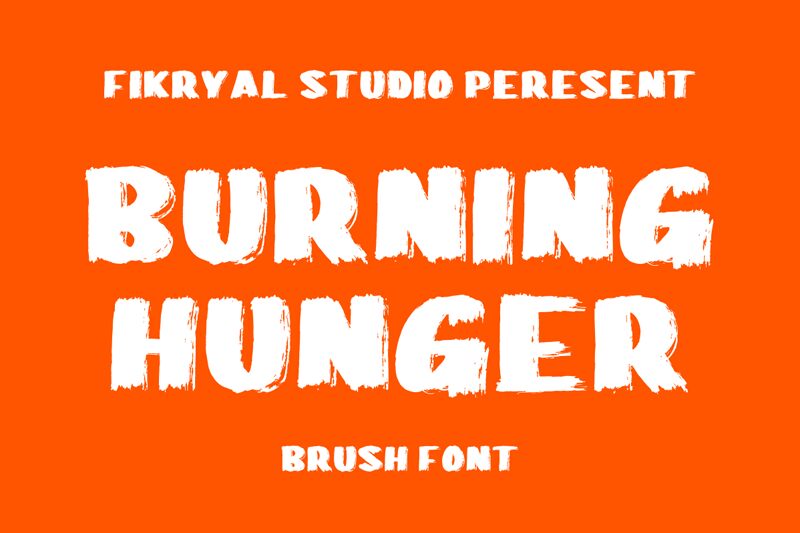
Burning Hunger font by Fikryal studio is a dynamic free brush typeface with an energetic and bold presence. Expressive while keeping a raw and natural texture. Thanks to its lettering-like design and youthful aesthetic, the font fulfills the need to achieve unique typography. Try to achieve impactful wording as you engage in communication activities that require attractive visuals that stand out from the rest of the content.